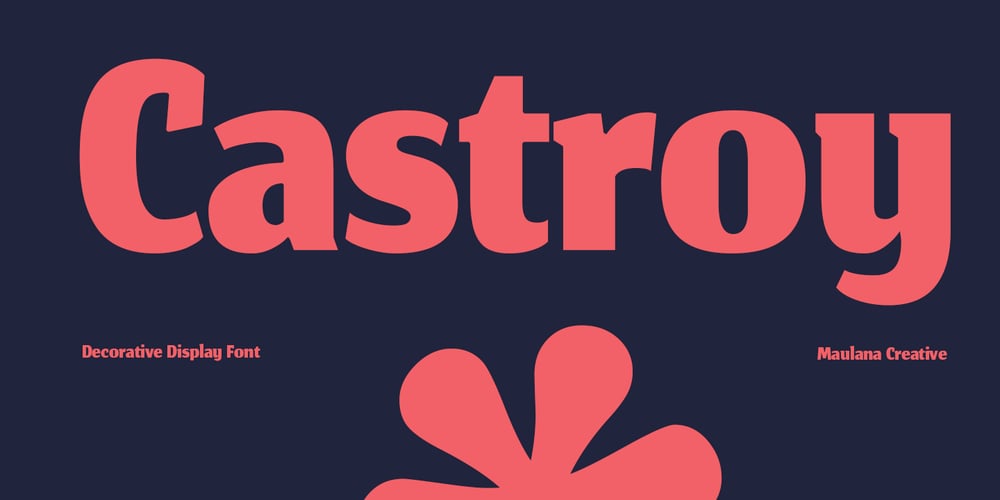
MC Castroy Font Family was designed by Gilang Maulana and published by Maulana Creative. MC Castroy contains 1 styles and family package options. Castroy is a modern Decorative flared serif Display font. Bold stroke, fun character with a bit of ligatures and alternates. To give you an extra creative work. Castroy font support multilingual more than 100+ language. This font is good for logo design, Social media, Movie Titles, Books Titles, a short text even a long text letter and good for your secondary text font with script or serif. Make a stunning work with Castroy font. Cheers, Maulana Creative